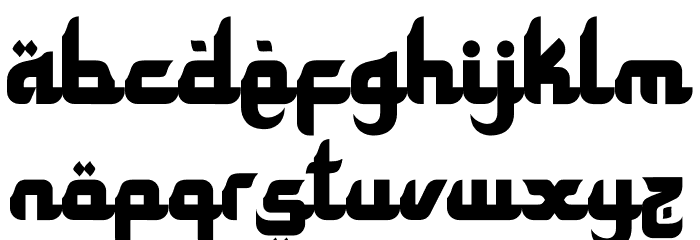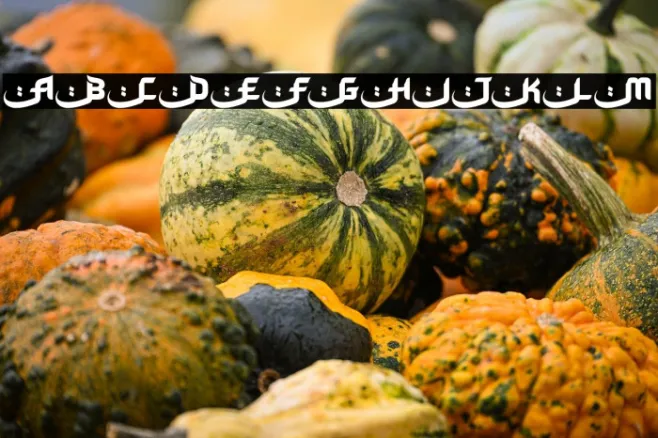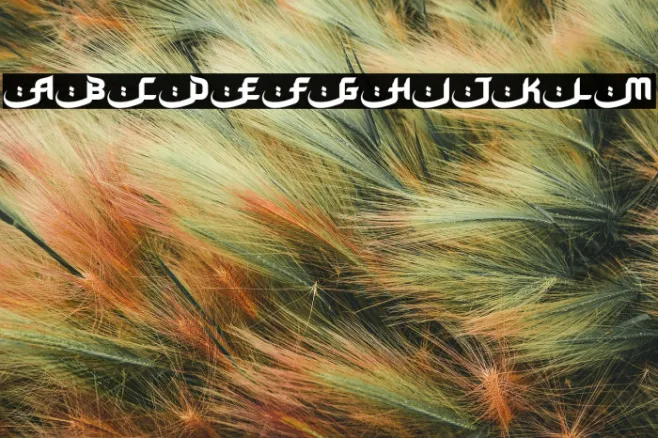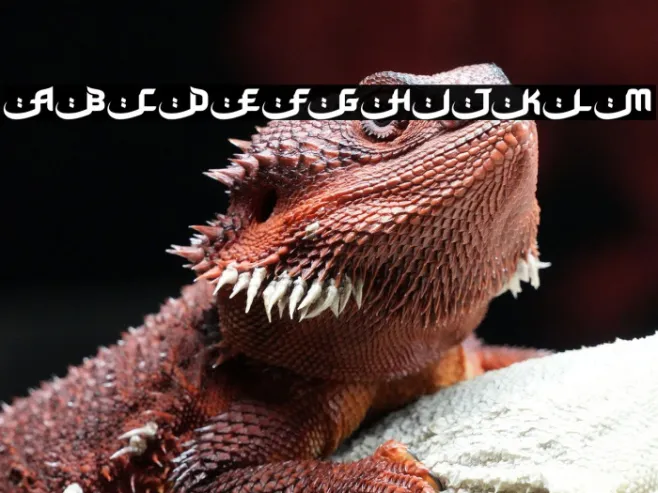
Special Ramadhan Font
This font features a unique blend of modern and traditional elements, characterized by its bold and decorative style. The uppercase letters are adorned with intricate dot patterns, reminiscent of calligraphic influences, while the lowercase letters maintain a strong, geometric form. The font's overall appearance is striking and memorable, making it suitable for special occasions and themed designs. Its bold weight and high contrast between thick and thin strokes add to its visual impact. The character spacing is normal, ensuring readability despite its decorative nature.
A bold, decorative font with calligraphic influences and intricate dot patterns.
- Proposed Projects: Ideal for holiday-themed graphics, event invitations, cultural posters, and branding that requires a distinctive and festive touch.